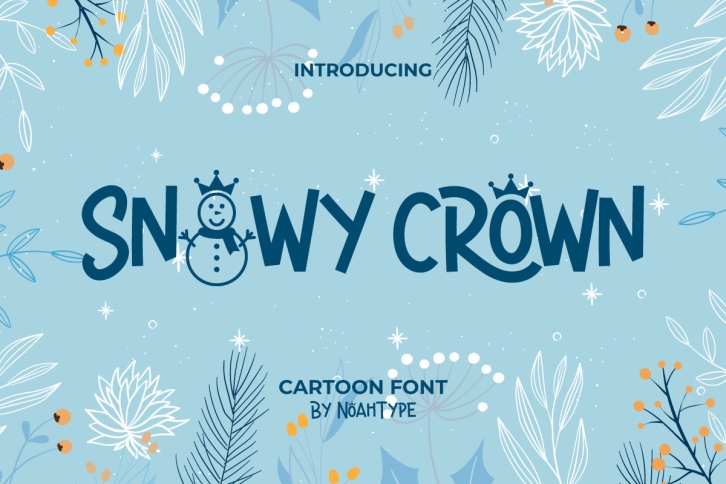
Snowy Crown is a cartoon like display font with winter and fun theme. The font is inspired from Snowy season holiday with cute ornaments and exclusive characters. It will be amazing for any projects including : cookies, winter sale, fashion, warm gloves, education, and many more.